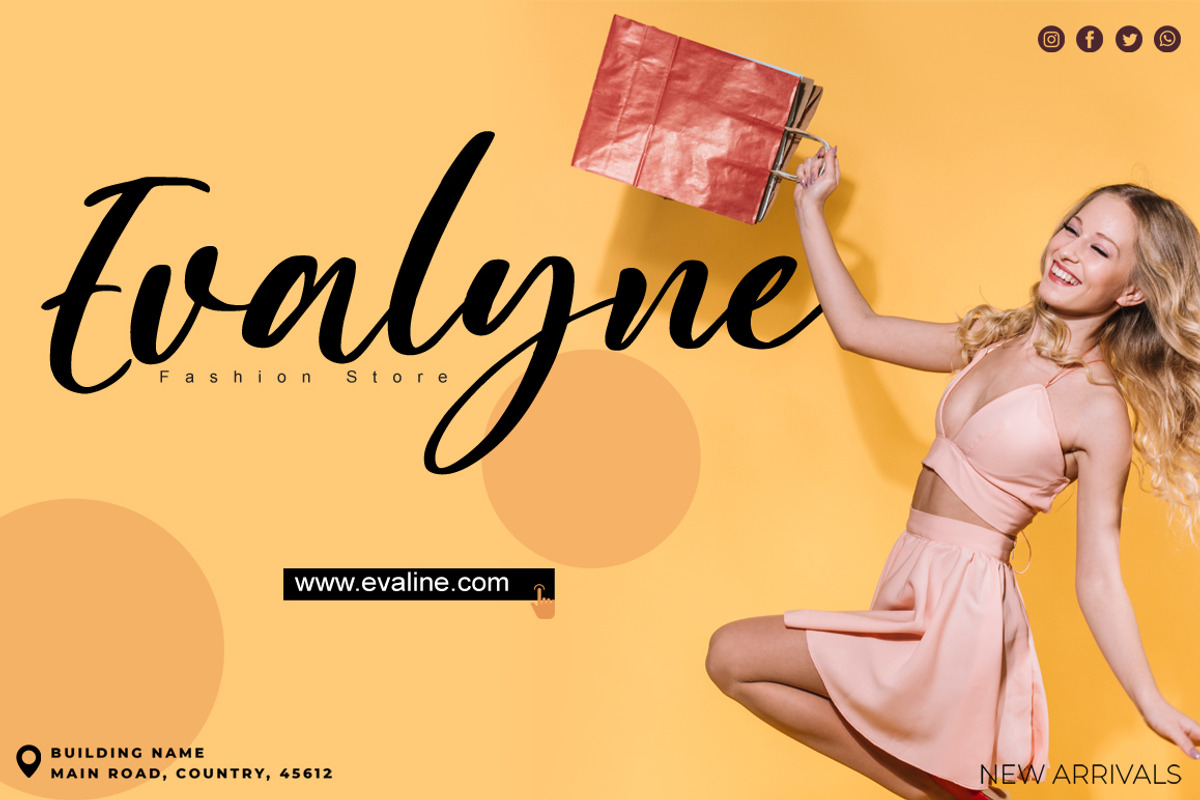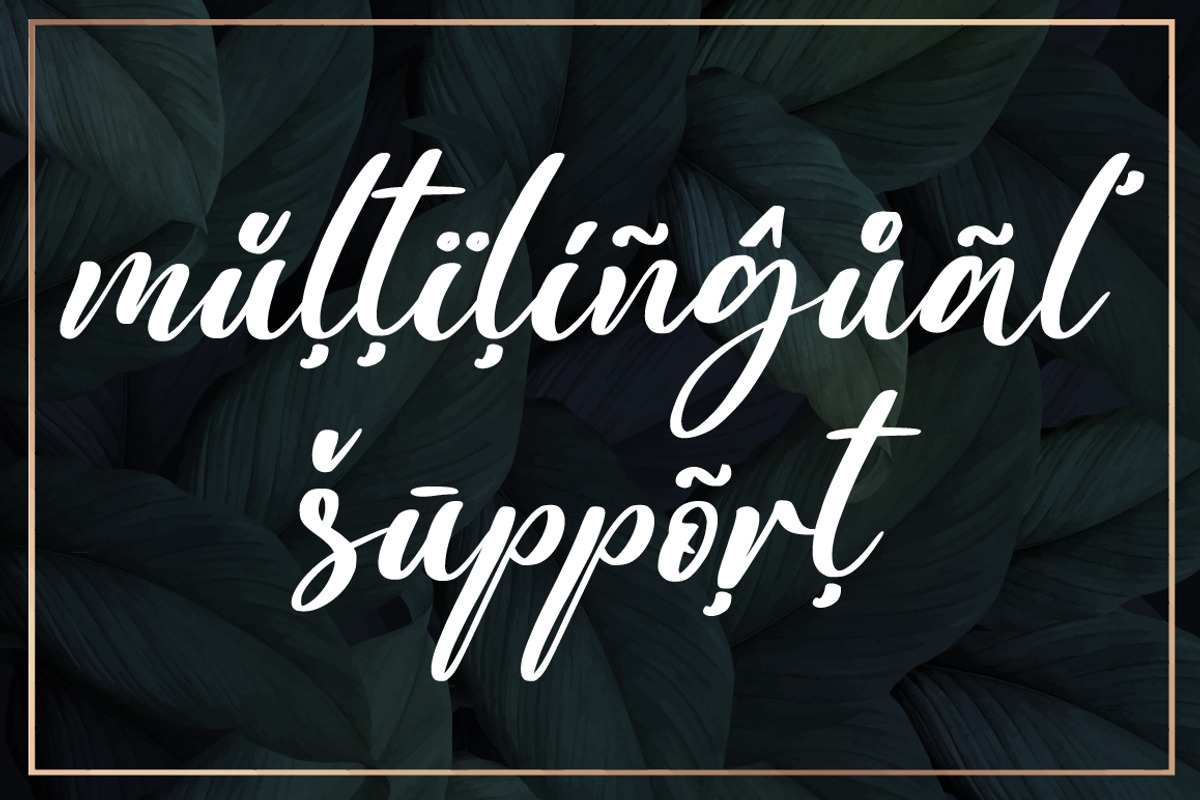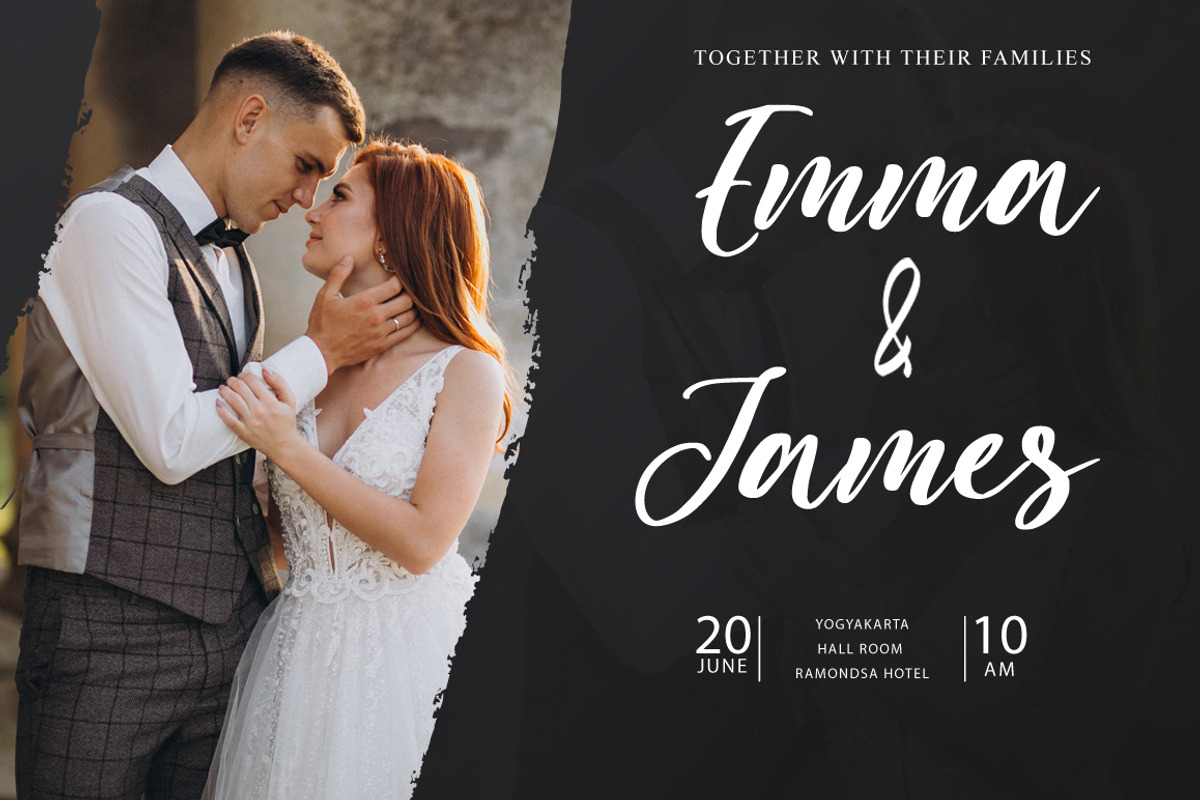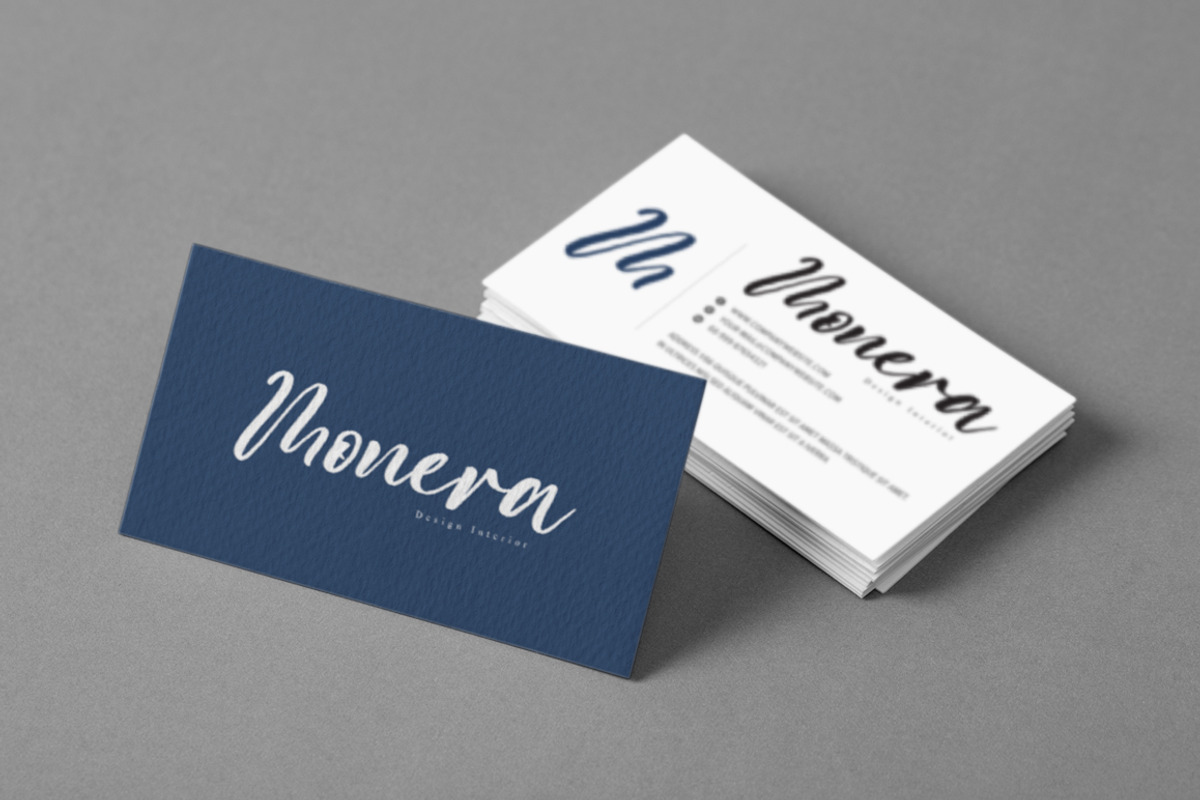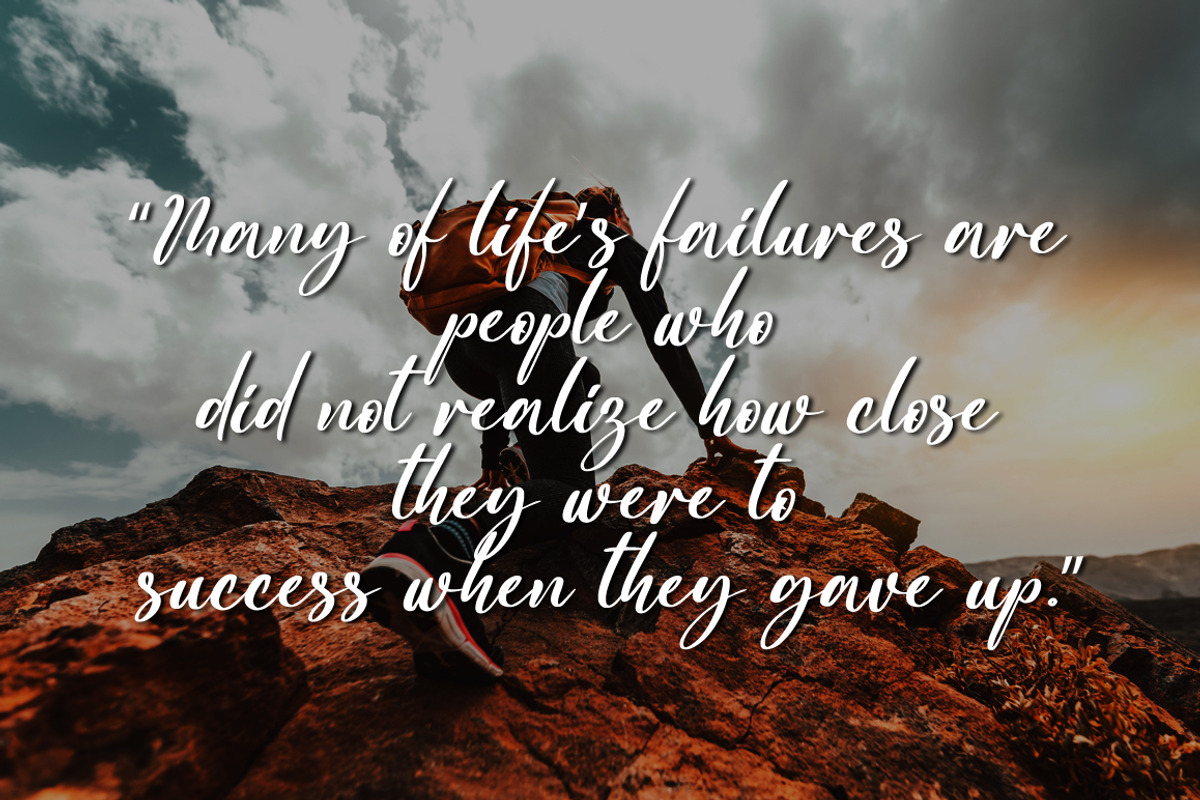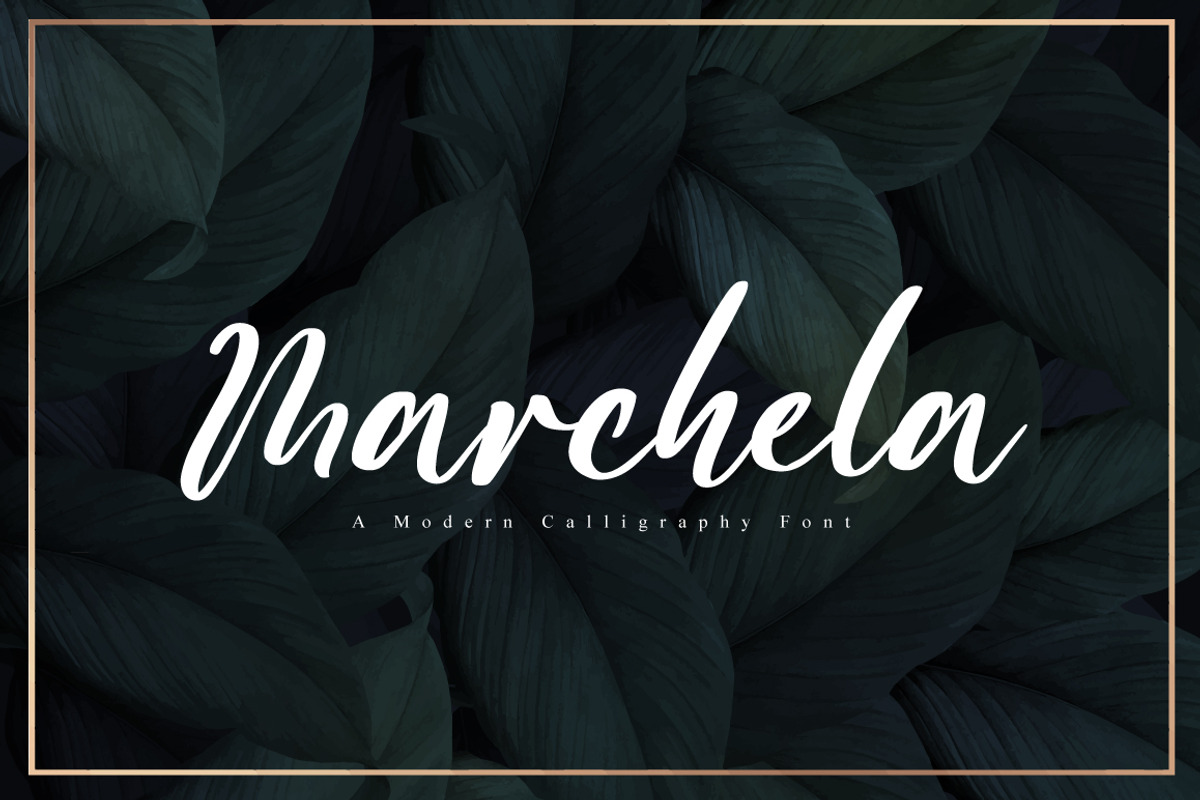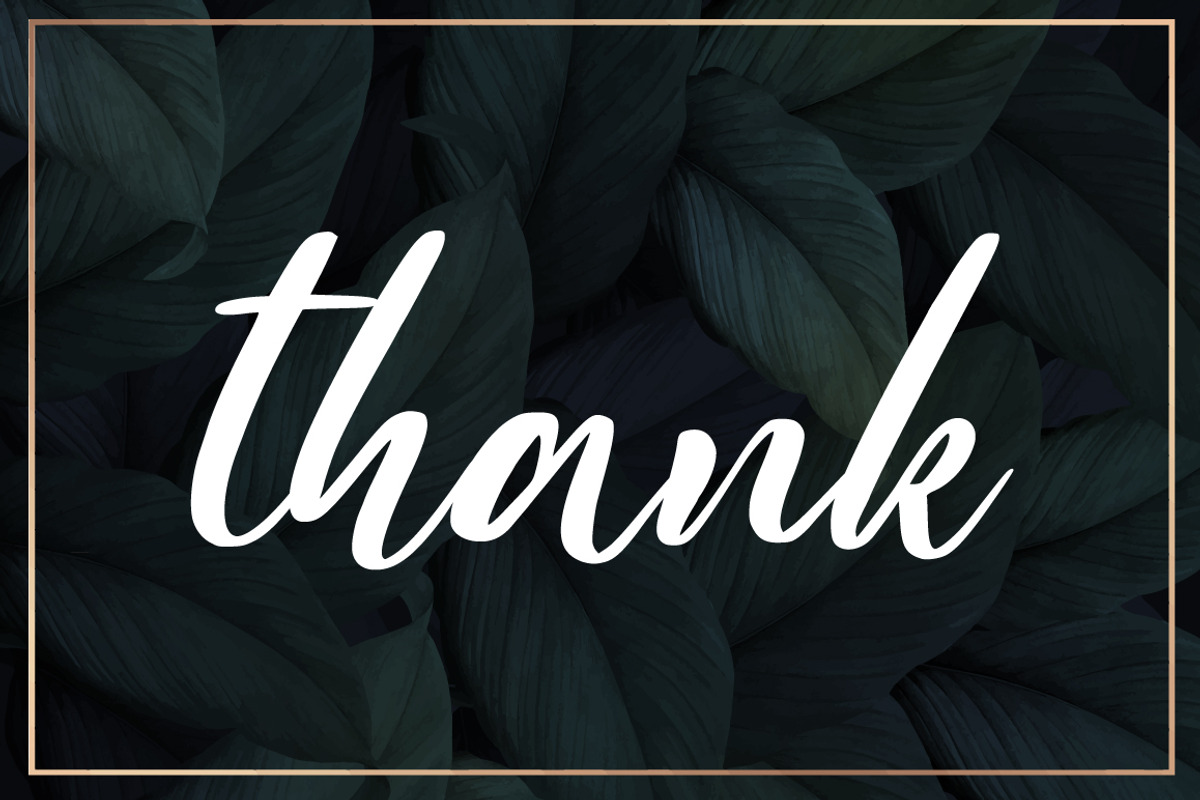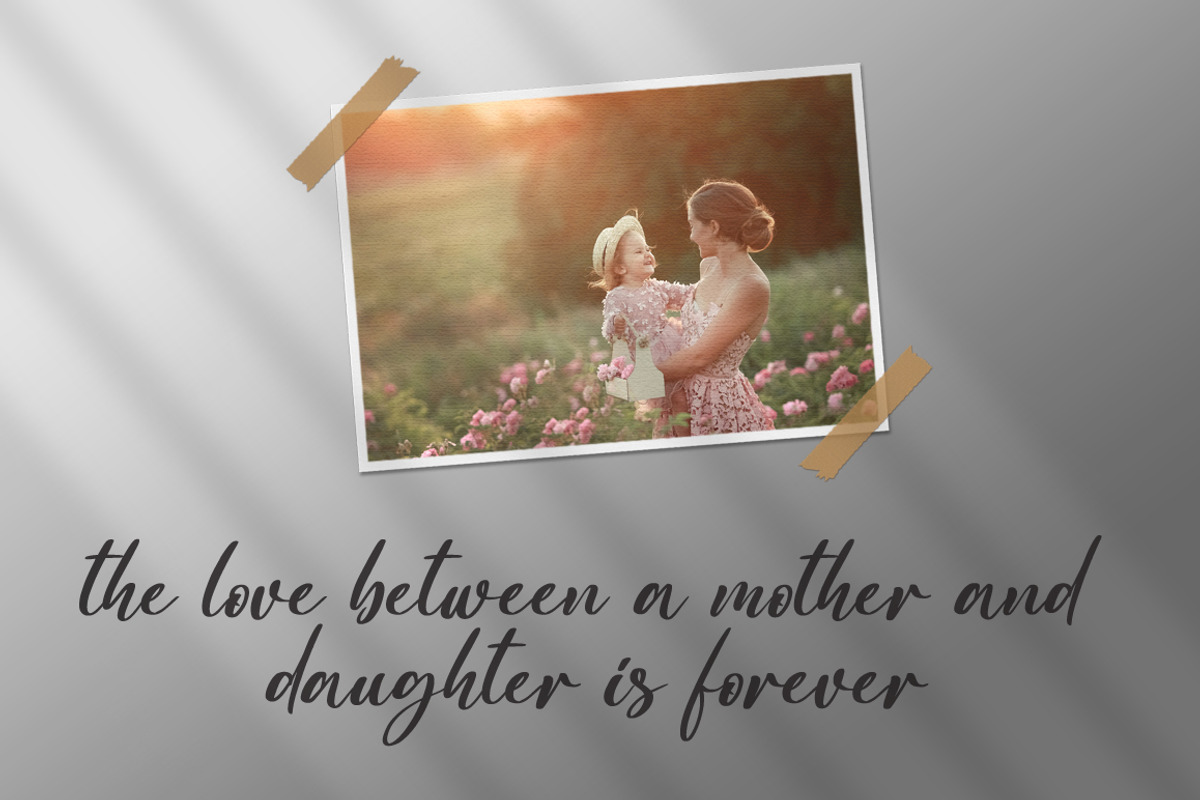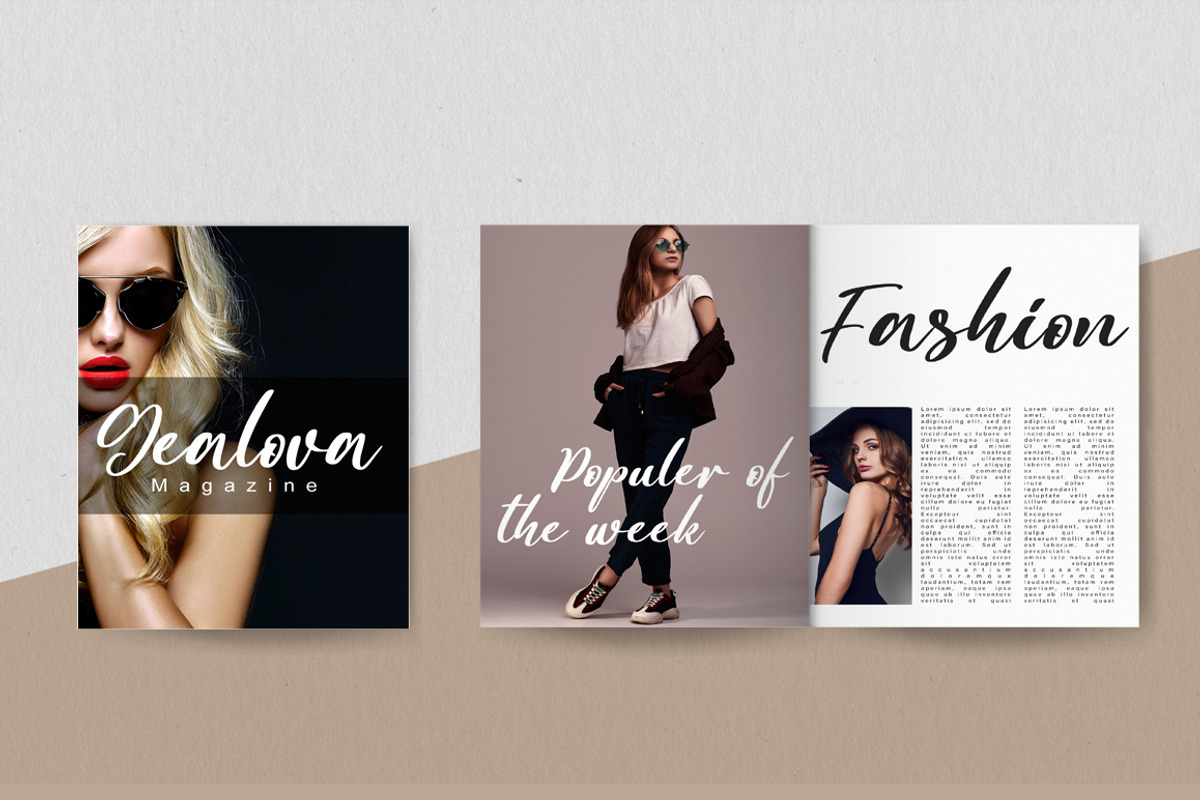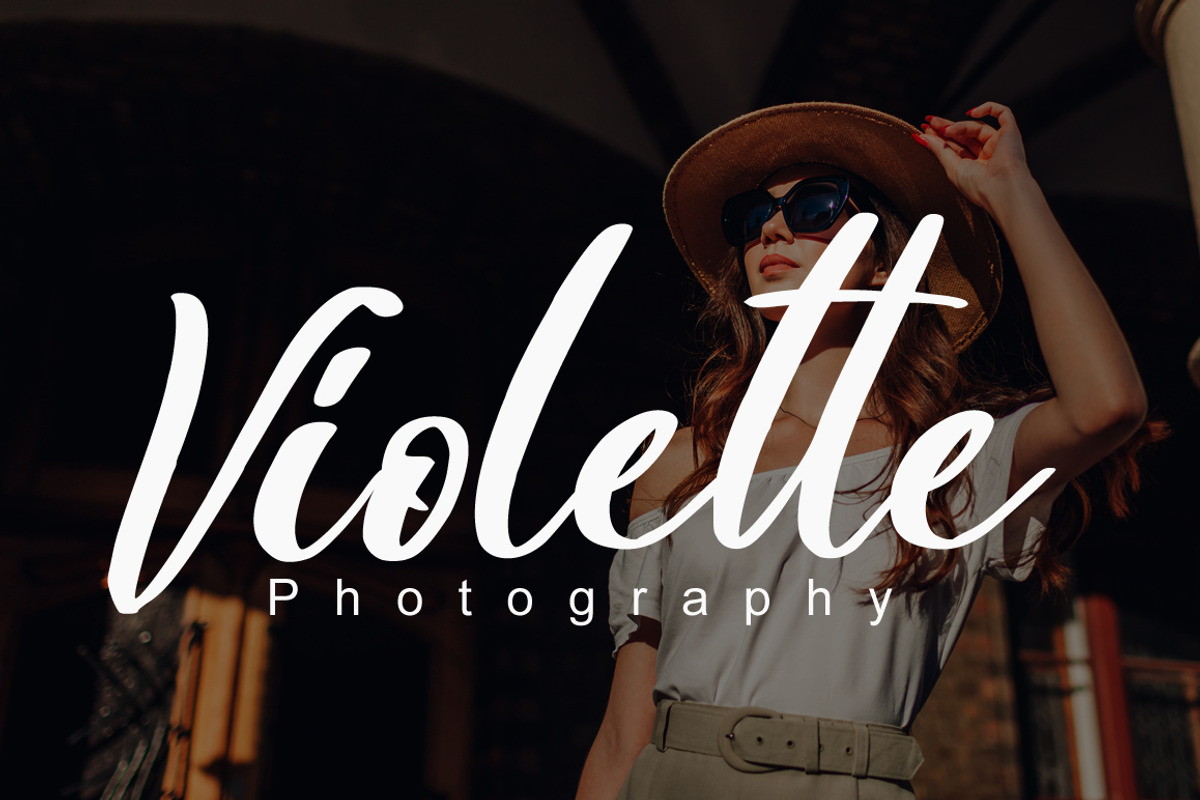
Marchela a Modern Calligraphy Font
Marchela is an enchanting handwritten font. This versatile script font has a wide spectrum of applications ranging from greeting cards to headlines and is guaranteed to add a romantic feel to your next project.